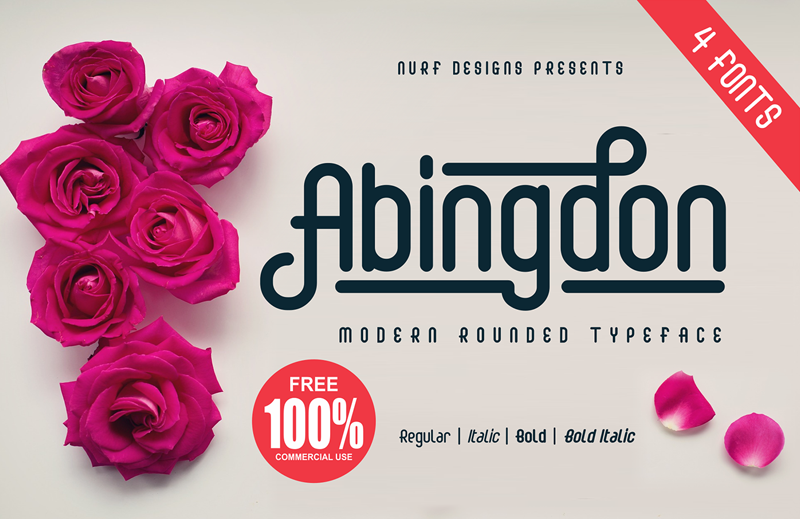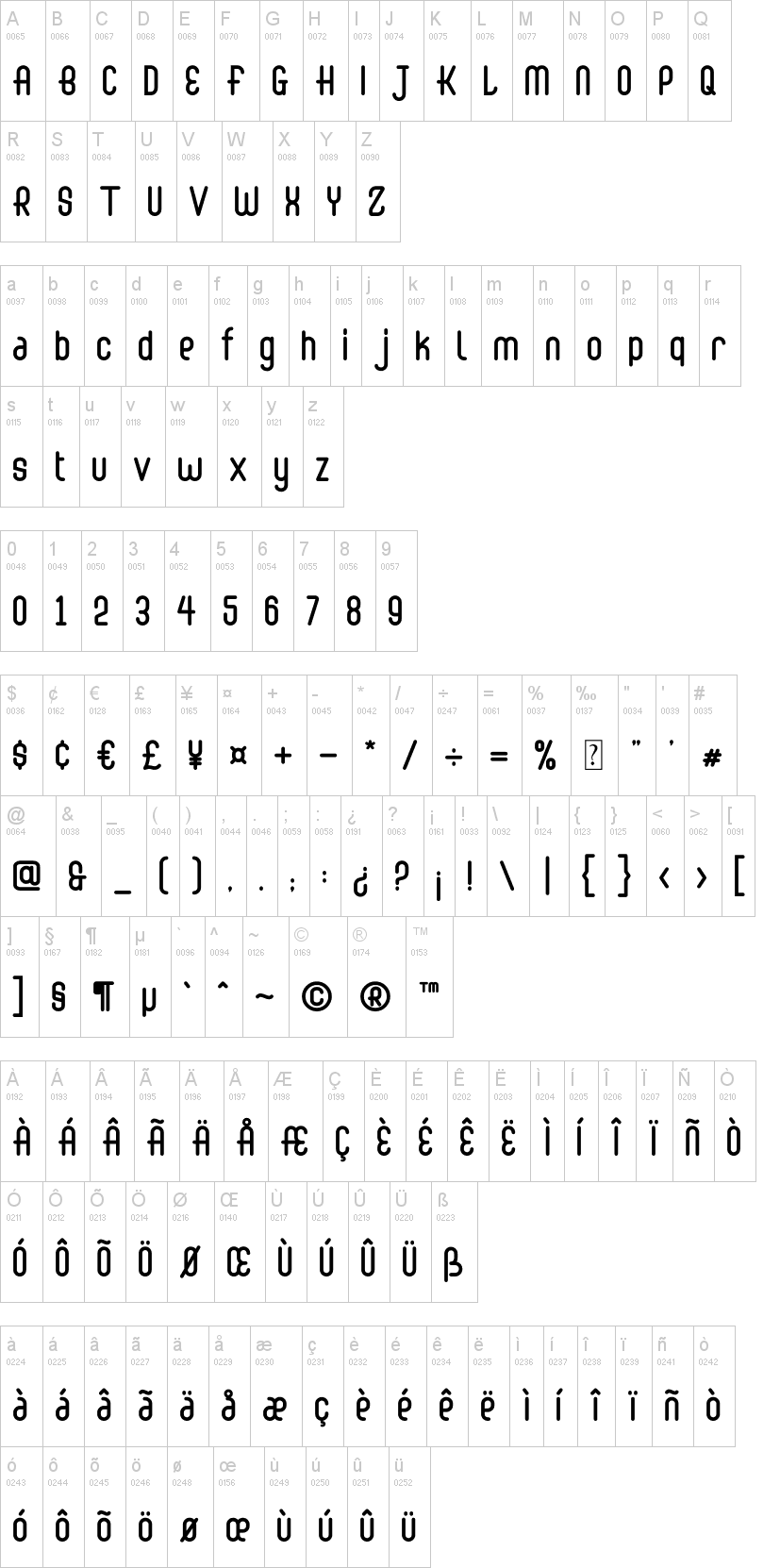
Abingdon Italic.otfAbingdon Bold.otfAbingdon Bold Italic.otfNote of the authorAbingdon is a great display font with a bold, modern charm. It will turn any vintage-themed design project into a stunner!